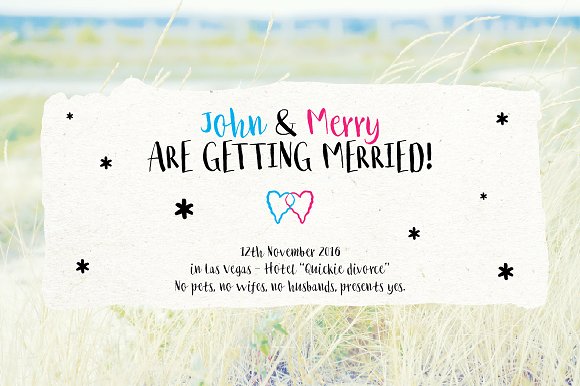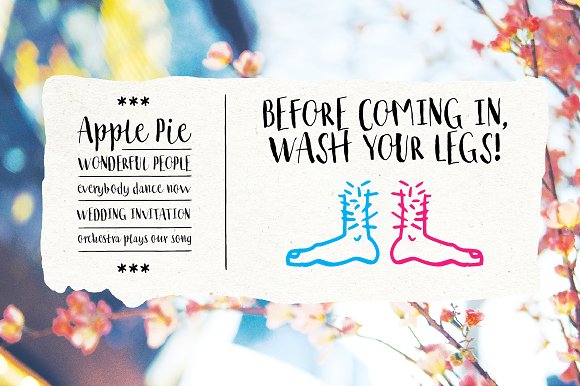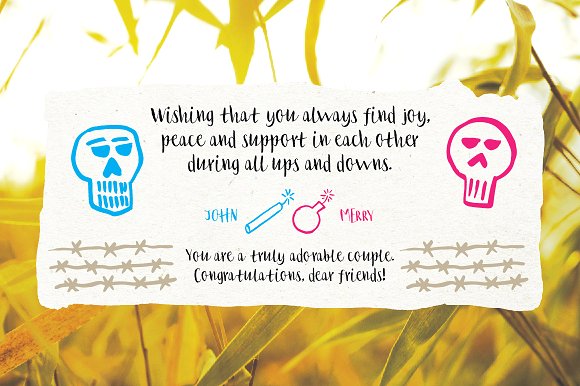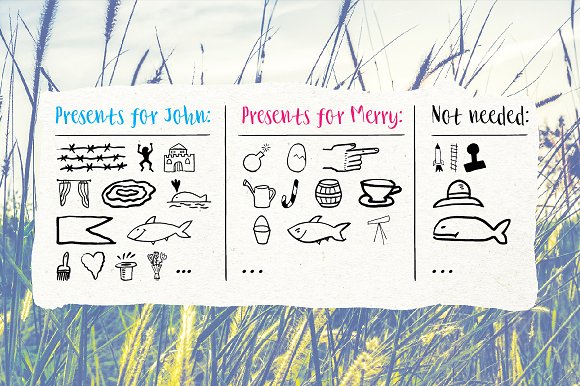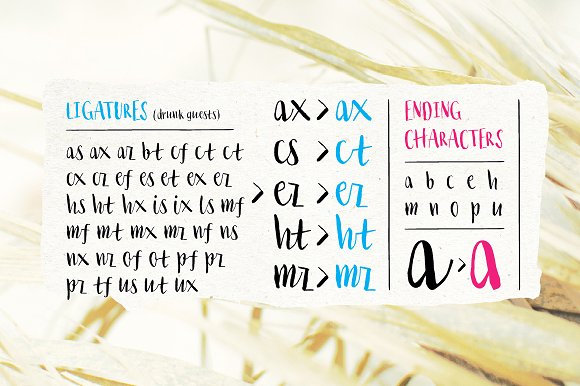
Crazymond Font: The Perfect Blend of Quirkiness and Charm
Catchy, clumsy, and charming – that’s Crazymond. This unique font has been making waves in the design community, and for good reason. With its irregular shapes, uneven baselines, and playful vibe, Crazymond is the perfect addition to any design project that needs a dash of personality.
The Story Behind Crazymond
Crazymond is a hand-drawn font, created with love and care by a talented designer. The font’s quirky design is a reflection of the designer’s playful approach to typography. Each letter is carefully crafted to have its own distinct character, making Crazymond a true standout in the world of fonts.
What Makes Crazymond So Special?
So, what sets Crazymond apart from other fonts? Here are just a few of its unique features:
- Irregular shapes: Crazymond’s letters have a delightfully irregular shape, giving the font a playful, hand-drawn feel.
- Uneven baselines: The font’s baselines are intentionally uneven, adding to its quirky charm.
- Plenty of character: Each letter in Crazymond has its own distinct personality, making the font perfect for designs that need a bit of whimsy.
Crazymond is a dream come true for designers and crafters looking to add a bit of personality to their projects. Whether you’re working on a logo, a poster, or a handmade craft, Crazymond is the perfect choice. The font’s playful vibe and irregular shapes make it perfect for:
- Handmade crafts: Add a touch of whimsy to your handmade crafts, such as knitting patterns, sewing projects, or scrapbooking pages.
- Logo design: Create a unique and memorable logo with Crazymond’s quirky charm.
- Poster design: Add a bit of personality to your posters with Crazymond’s playful font.
Tips for Using Crazymond
Here are a few tips for getting the most out of Crazymond:
- Use it sparingly: Crazymond is a bold font, so use it sparingly to add emphasis to your design.
- Pair it with a neutral font: Balance out Crazymond’s playfulness with a neutral font, such as a sans-serif or serif font.
- Experiment with colors: Crazymond looks great in a variety of colors, so don’t be afraid to experiment and find the perfect hue for your design.
Crazymond is a one-of-a-kind font that’s sure to add a touch of personality to any design project. With its quirky charm, irregular shapes, and playful vibe, Crazymond is the perfect choice for designers and crafters looking to make a statement. So why not give Crazymond a try? Download it today and see what kind of creative possibilities you can come up with!